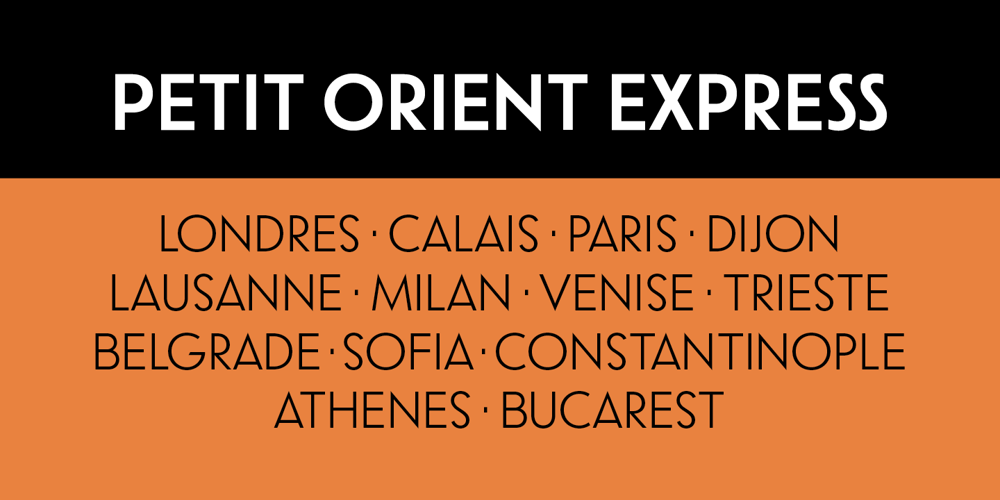
Radar Font Family was designed by Marta Sánchez Marco and published by Type-Ø-Tones. Radar contains 4 styles and family package options. Radar is a revival of the sans serif typeface “Grotesca Radio”, from the Spanish foundry Richard Gans, which existed from 1888 to 1975. His authorship is attributed to the German type designer and master punchcutter Carl Winkow. Although the new version of this font has always tried to keep accurate similarities with the original typeface, Radar is not intended as a strict revival, but as a contemporary interpretation. In this new version the user can find some alternate characters that give the typeface a more art-déco or neutral flair.